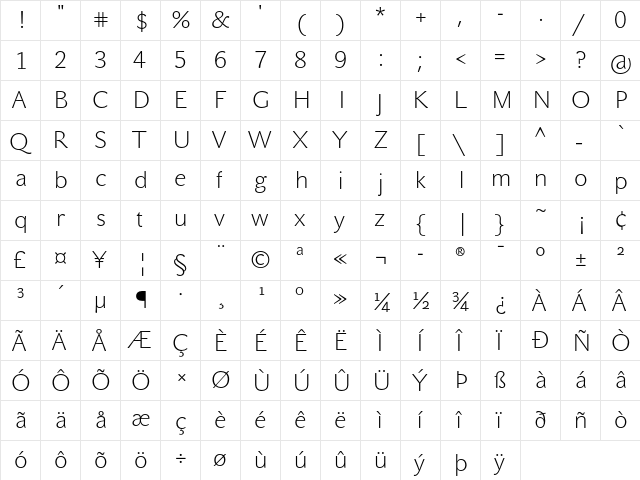
JohnSans White Pro Regular
Design Context for JohnSans White Pro Typeface
JohnSans White Pro offers clean, dependable letterforms without strong stylistic allegiance, making it a practical choice for designers who need flexibility.
Pro Tip: Use JohnSans White Pro in both headline and body roles to test its range before committing to a single application.